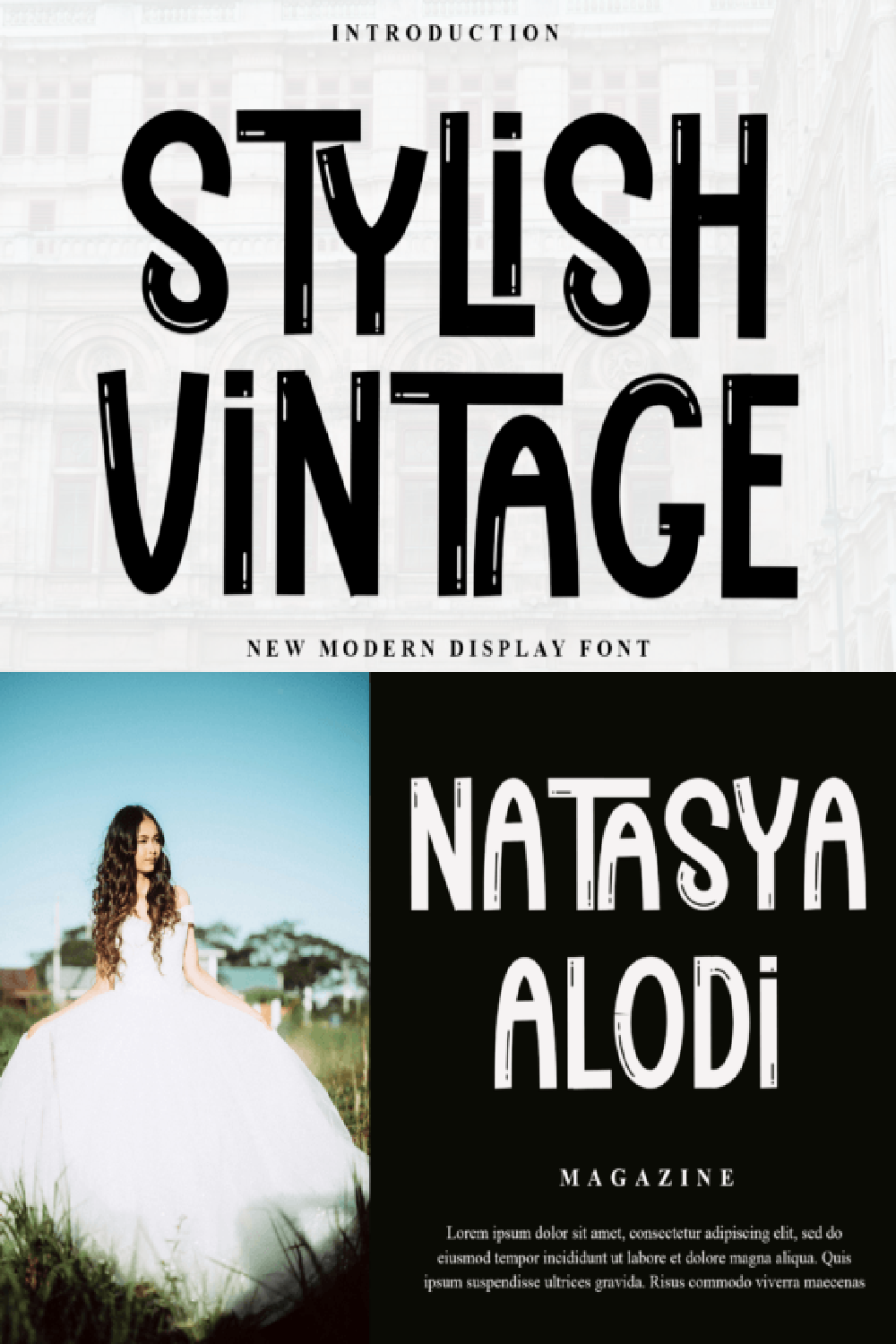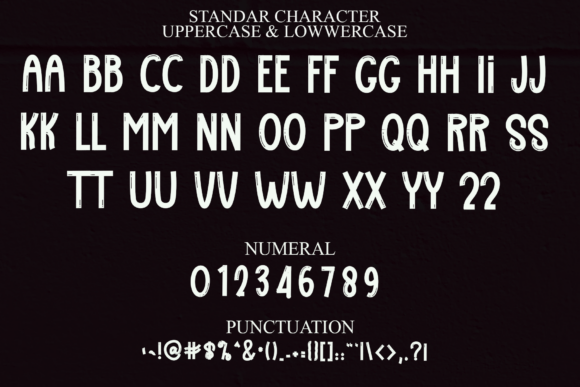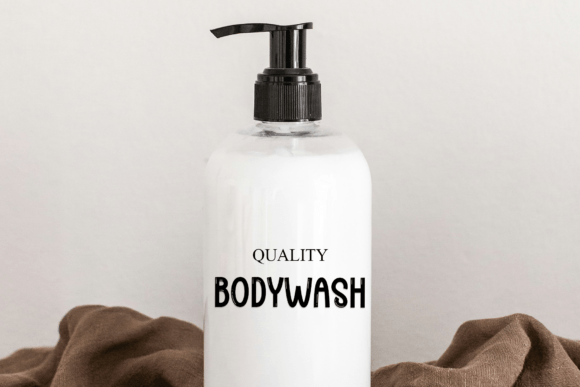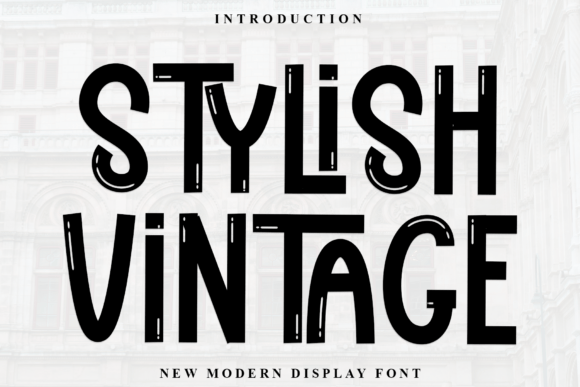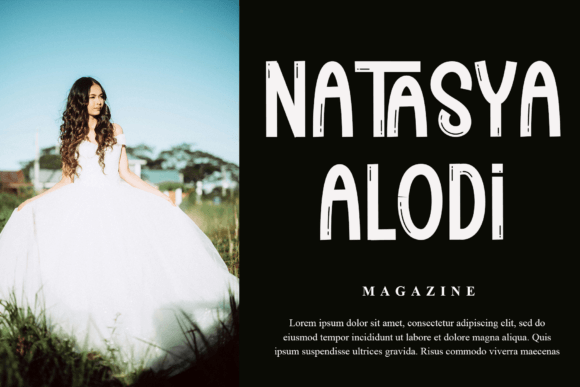
Stylish Vintage Font
About the Stylish Vintage Font
Meet Stylish Vintage Font, a stunning font that brings a touch of elegance and professionalism to any design. Stylish Vintage is a festive and merry typeface that captures the spirit of the holiday season. With its decorative elements and whimsical flair, it adds a touch of enchantment to your designs. Perfect for greeting cards, gift tags, and holiday-themed projects, this font brings a cheerful and nostalgic ambiance to your words. Let your typography shine with the magic of Christmas Font!